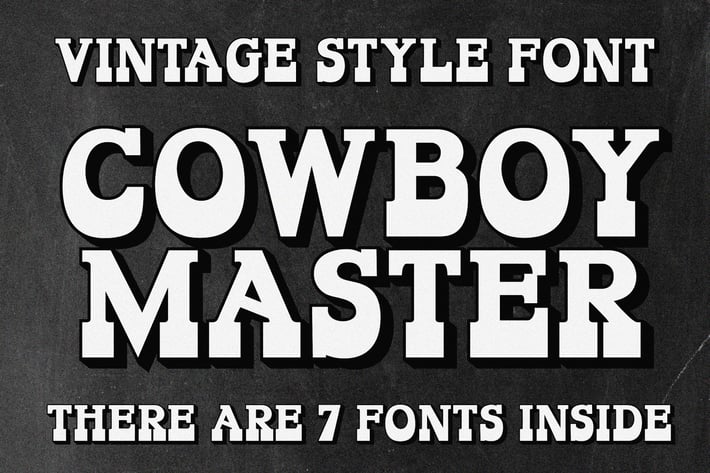
Cowboy Master Vintage Font Family
Cowboy Master is cool vontage font. It can easily be matched to an incredibly large set of projects like logo, package, advertisement, magazine, , so add it to your creative ideas and notice how it makes them stand out!